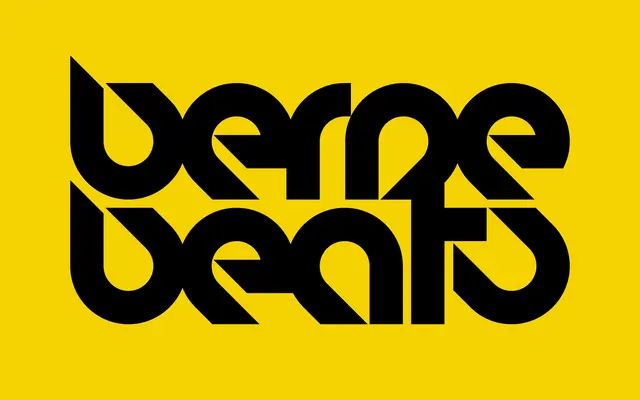
BD BerneBeats
Type Different · Büro Destruct · 2004
A single-weight round display face from Büro Destruct, aimed squarely at festival logotypes and music titling work.
Released by Büro Destruct in 2004, BD BerneBeats is a chunky, round typeface built for headline and logotype use at large sizes. The letterforms carry a bold, rhythmic quality suited to pop music and festival contexts. Coverage extends across Latin Western European languages including Swiss-German, French, German and Scandinavian scripts.
A round, bold, single-weight display face designed explicitly for festival logotypes and titling, with no text utility intended. Its chunky, rhythmic letterforms place it firmly in decorative display territory.